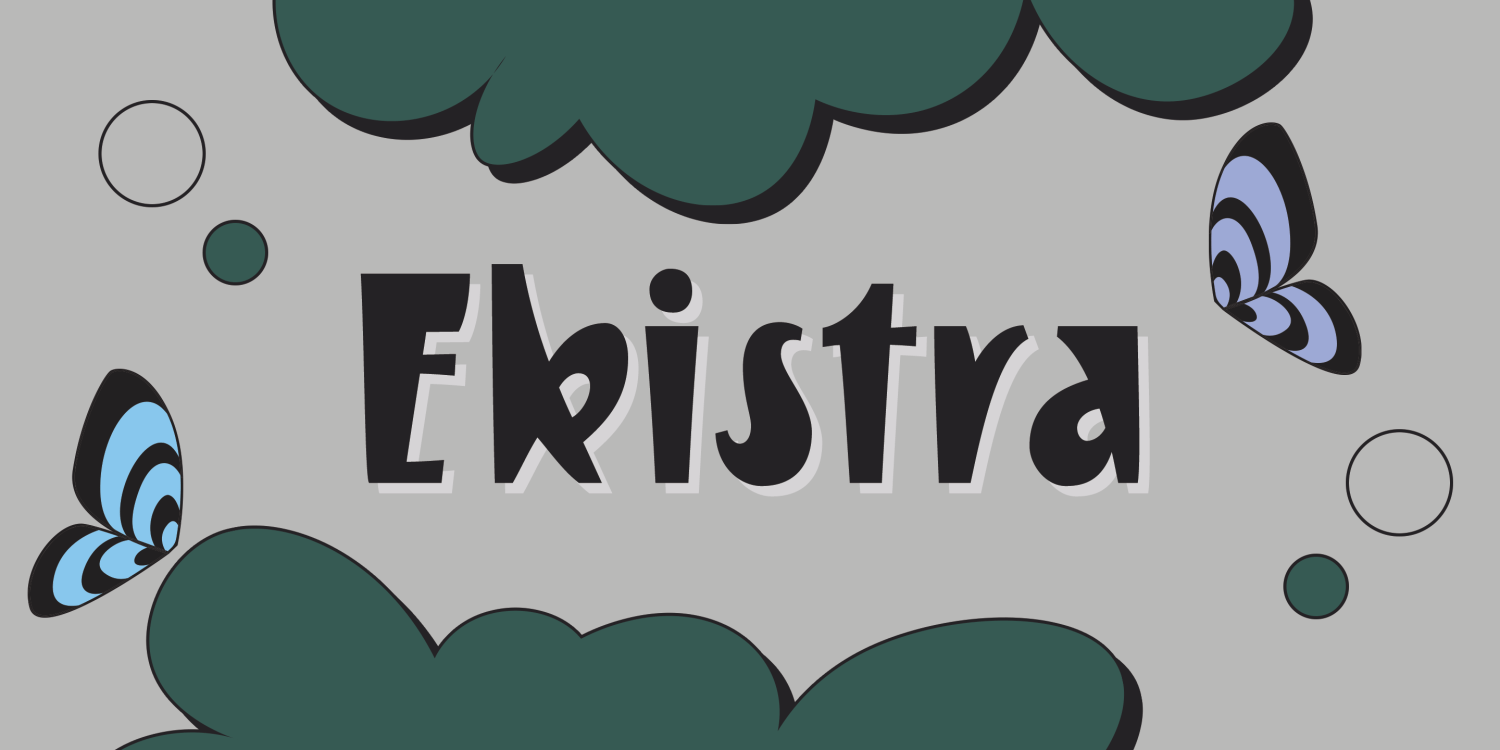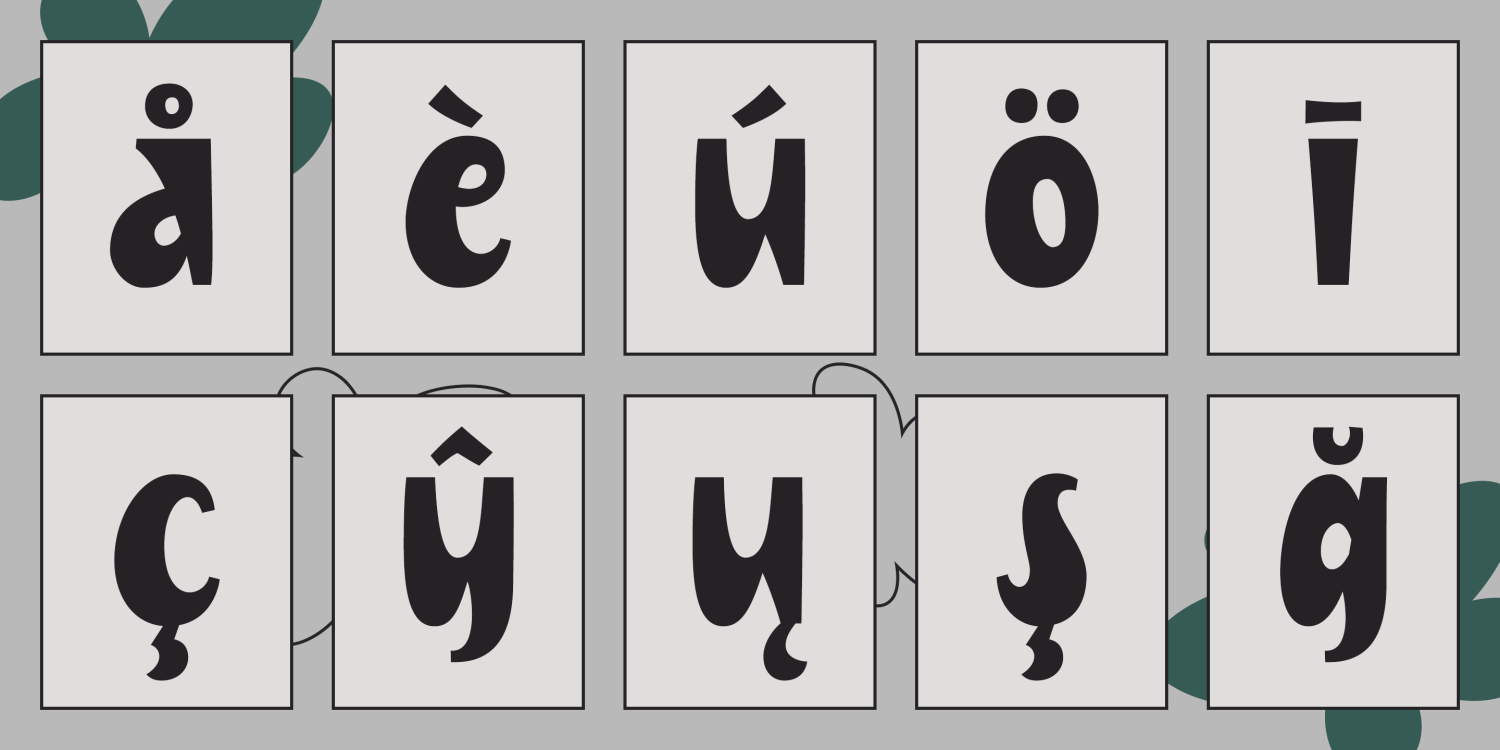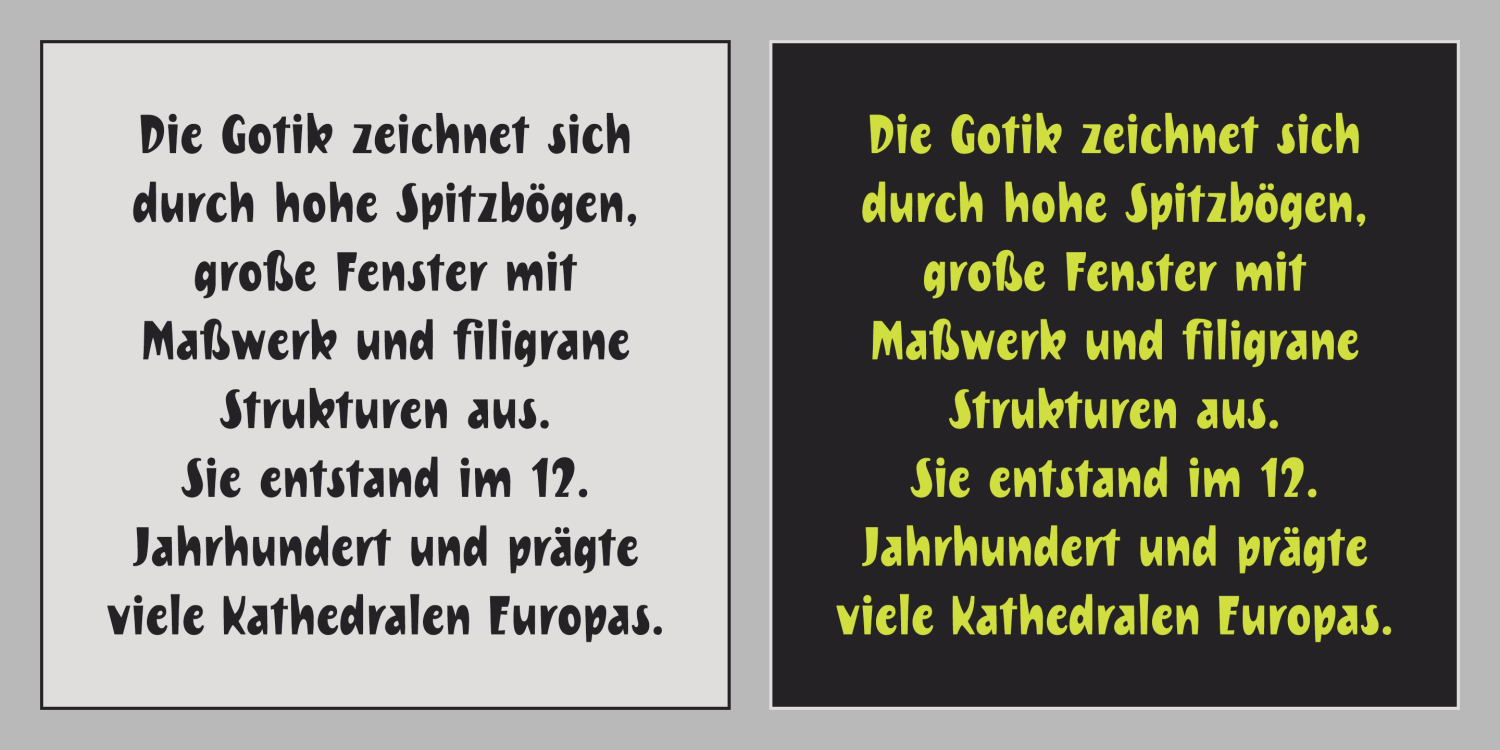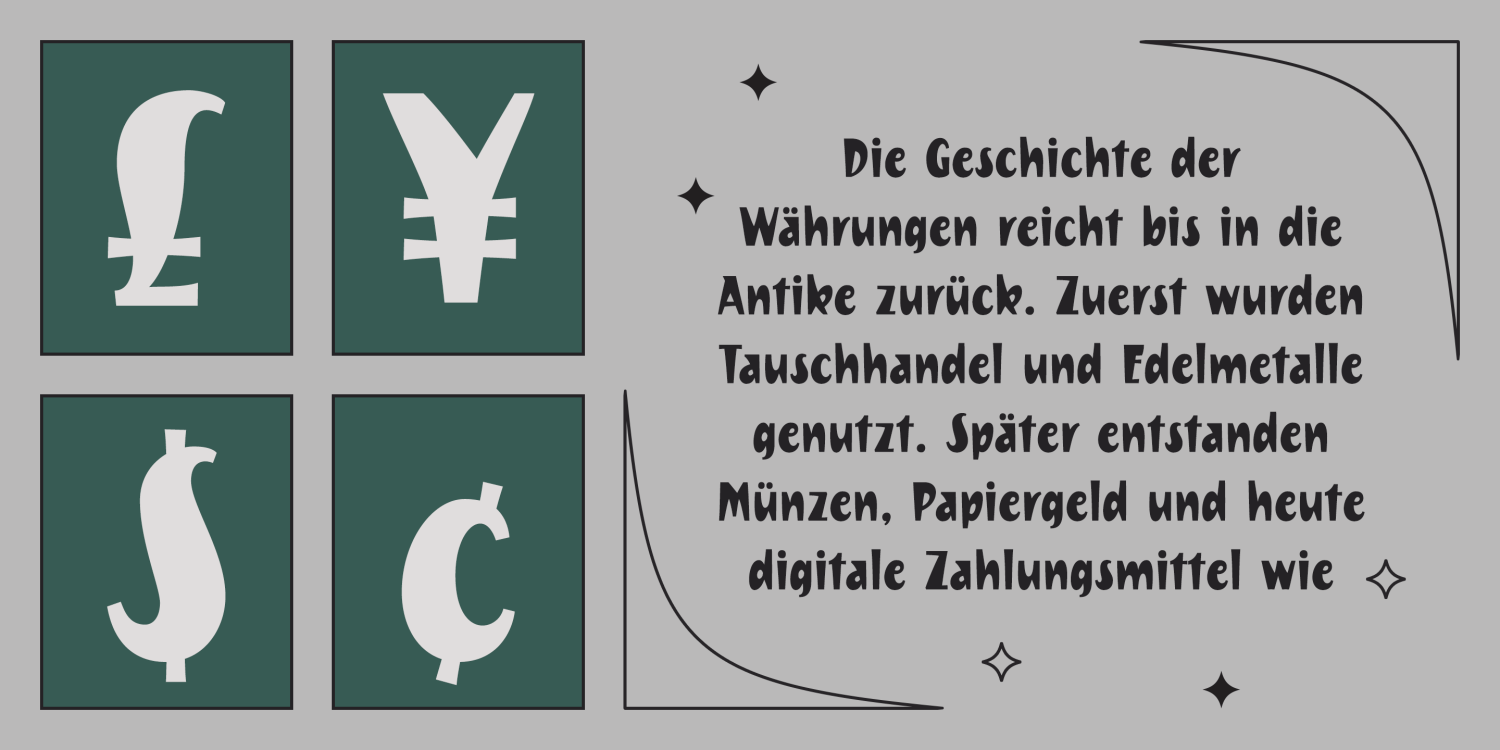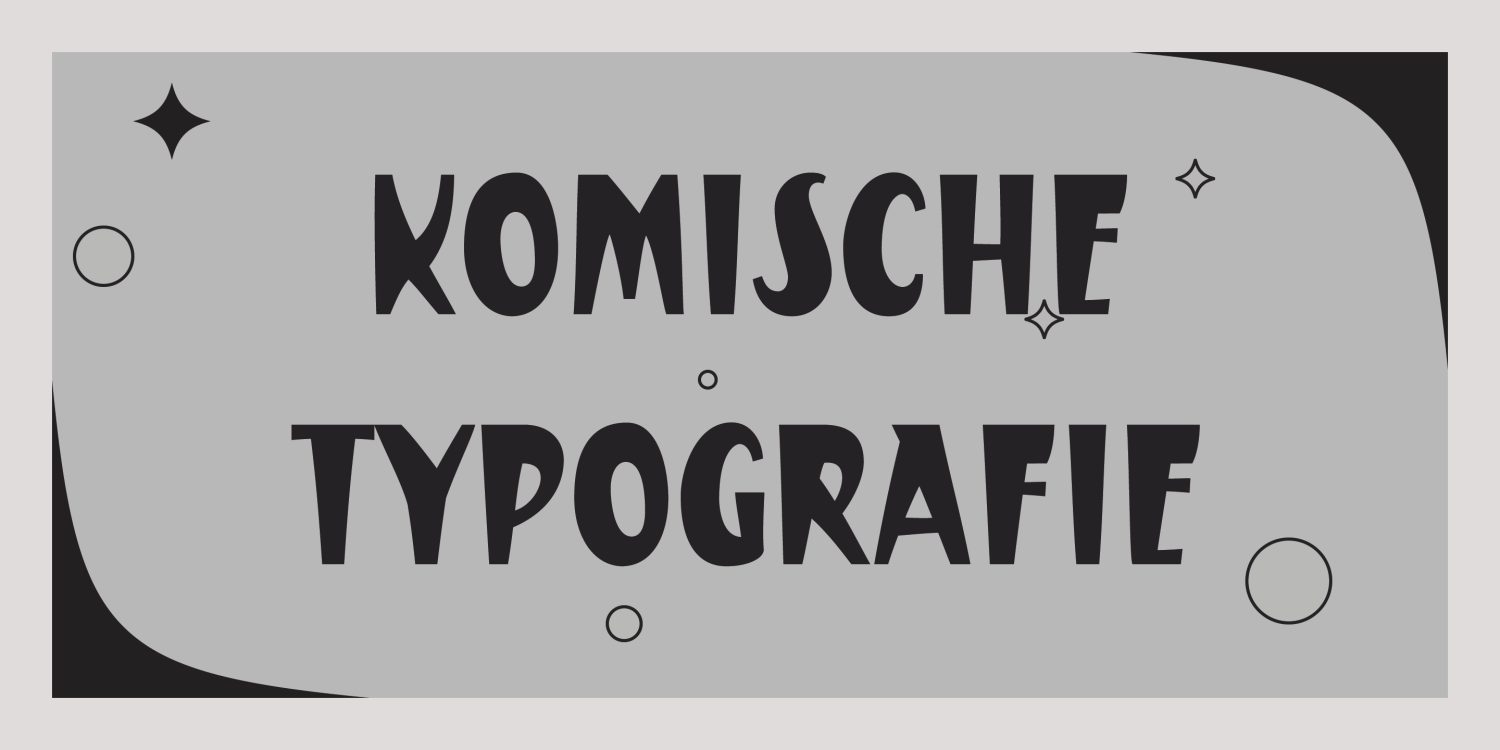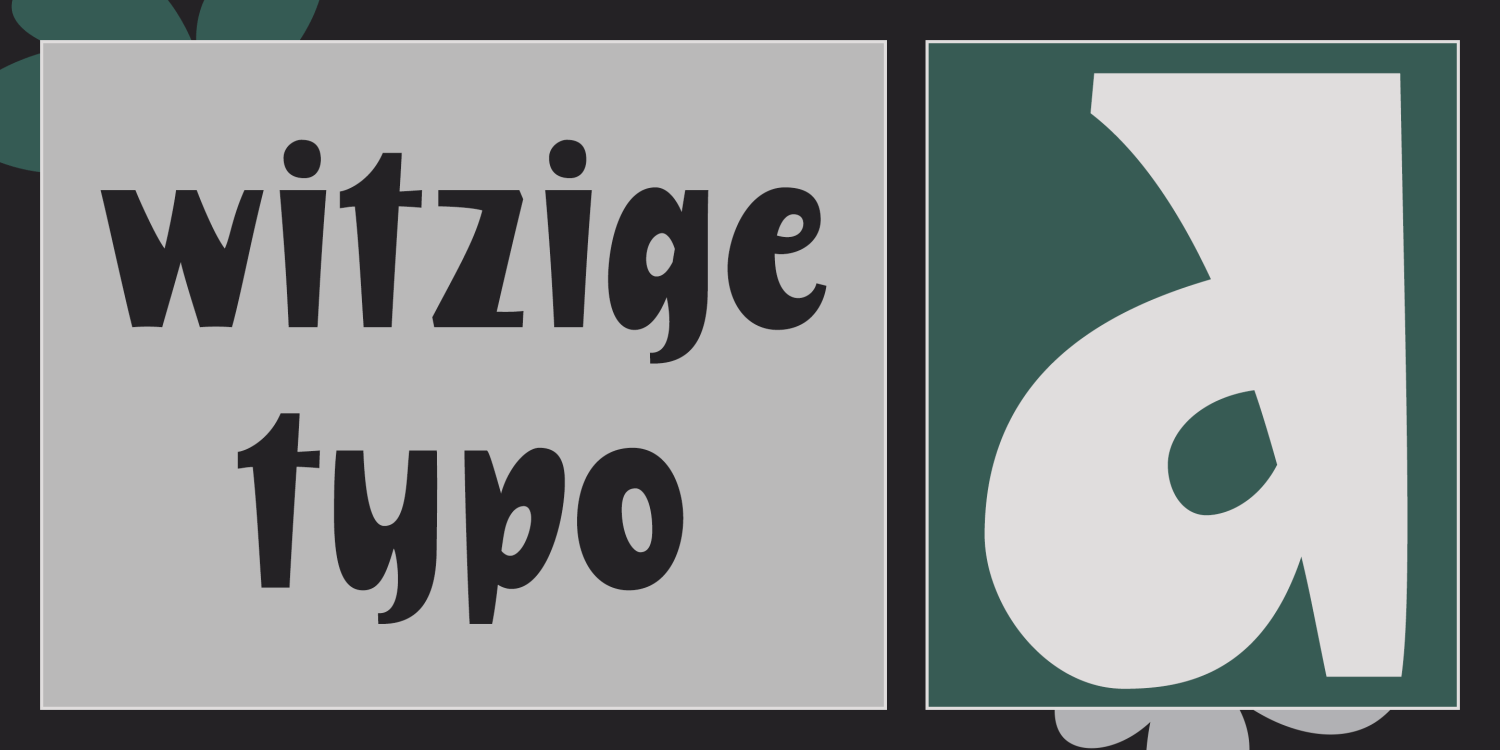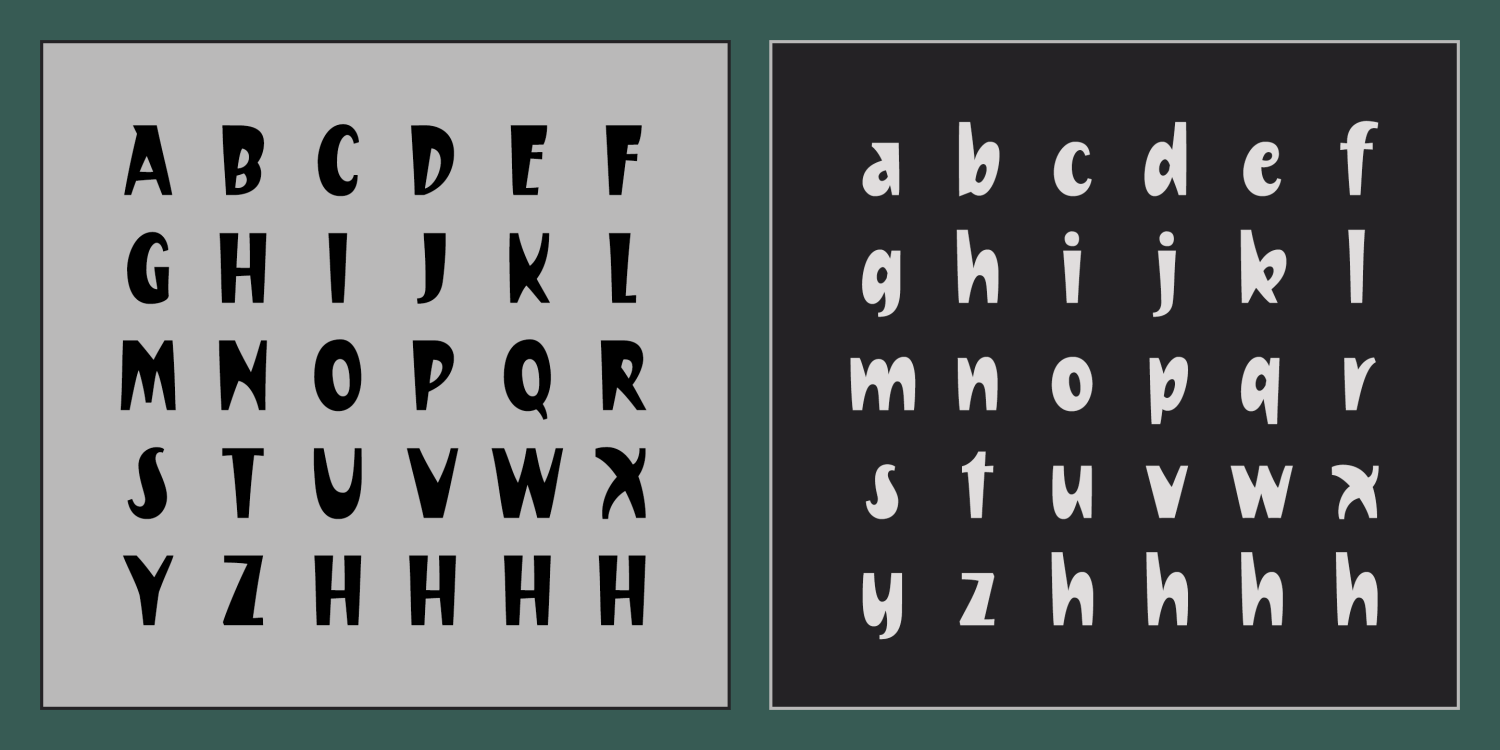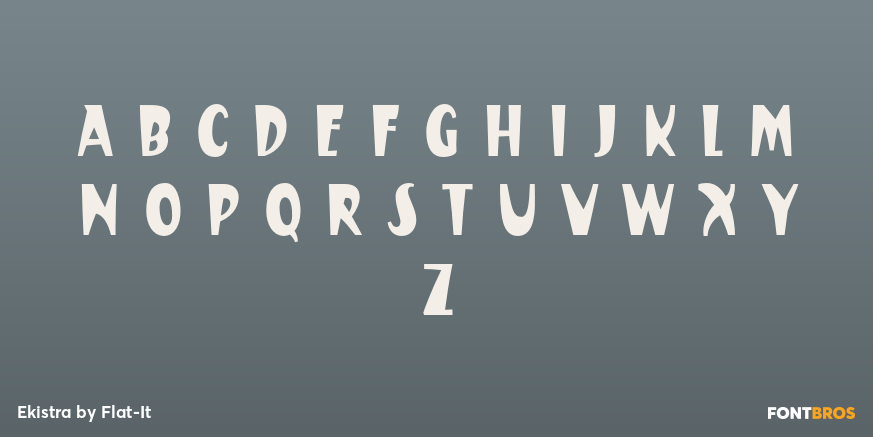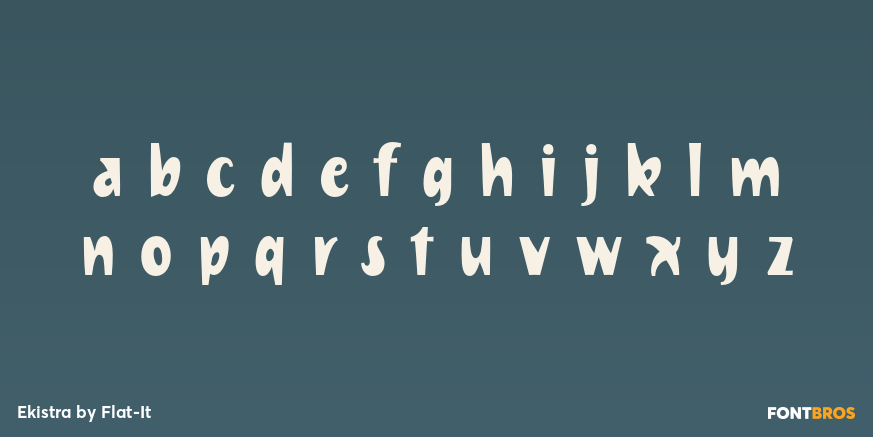
Ekistra
Font Family by Dharma Type
A quirky sans-serif made for happy, fun moments.
Lively, bold, and full of personality—perfect for playful designs, party themes, or anything that needs a burst of joy.